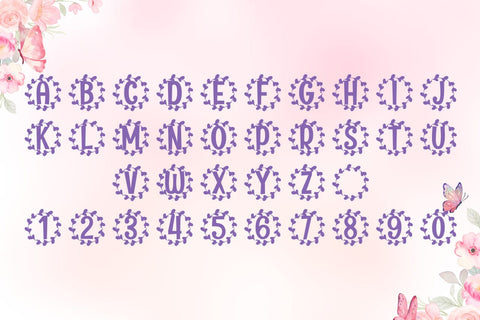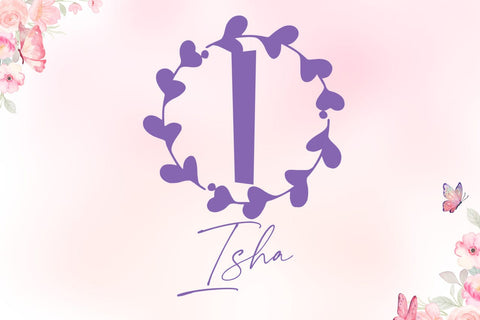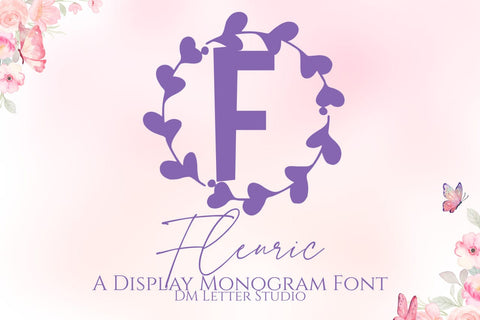
Fleuric Monogram Font
Meet Fleuric, the Monogram Font
Fleuric Monogram Font turns initials into graceful botanical marks. Stems and curves feel poised. Spacing stays open, so tiny tags still read clearly. Use it for wedding suites, boutique logos, keepsake gifts, and premium packaging. Moreover, Fleuric pairs beautifully with soft serifs and modern sans. Therefore, your layouts feel refined without extra work.
Where the Monogram Font shines
Set single, double, or triple initials for logos and seals. Then frame them with laurel rings, oval borders, or fine rules. Since proportions favor symmetry, polished compositions build in minutes. As a result, your thumbnails stand out on crowded marketplaces. Plus, Fleuric scales from jewelry cards to venue signage with ease.
Design tips for Fleuric Monogram Font
Keep initials large and let white space breathe. Pair the headline monogram with a quiet serif or humanist sans. Meanwhile, add micro shadows, thin inner strokes, or a fine frame. Because the structure is airy, metallic accents raise perceived value. Try champagne with charcoal. Or choose blush with espresso for a warm, romantic set.
Select stylistic alternates for key letters
Curves tuned for foil, letterpress, engraving, and clean vinyl cutting
Why creators choose this Monogram Font
You need elegance that reads fast and sells quickly. Fleuric delivers. It grabs attention at thumbnail size and speeds production. Also, it keeps brand voice cohesive from invites to favors. However, keep copy brief and let the monogram lead. Consequently, every piece feels intentional, premium, and memorable.
Creative ideas to boost value